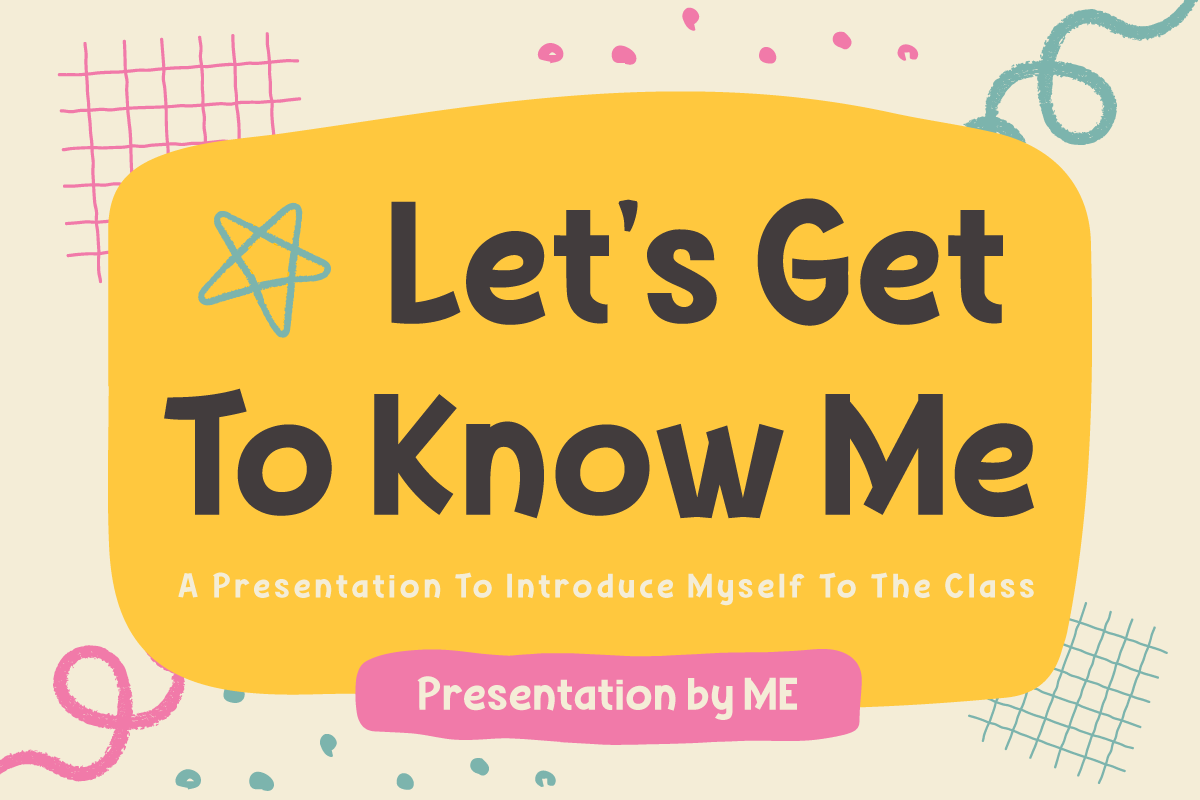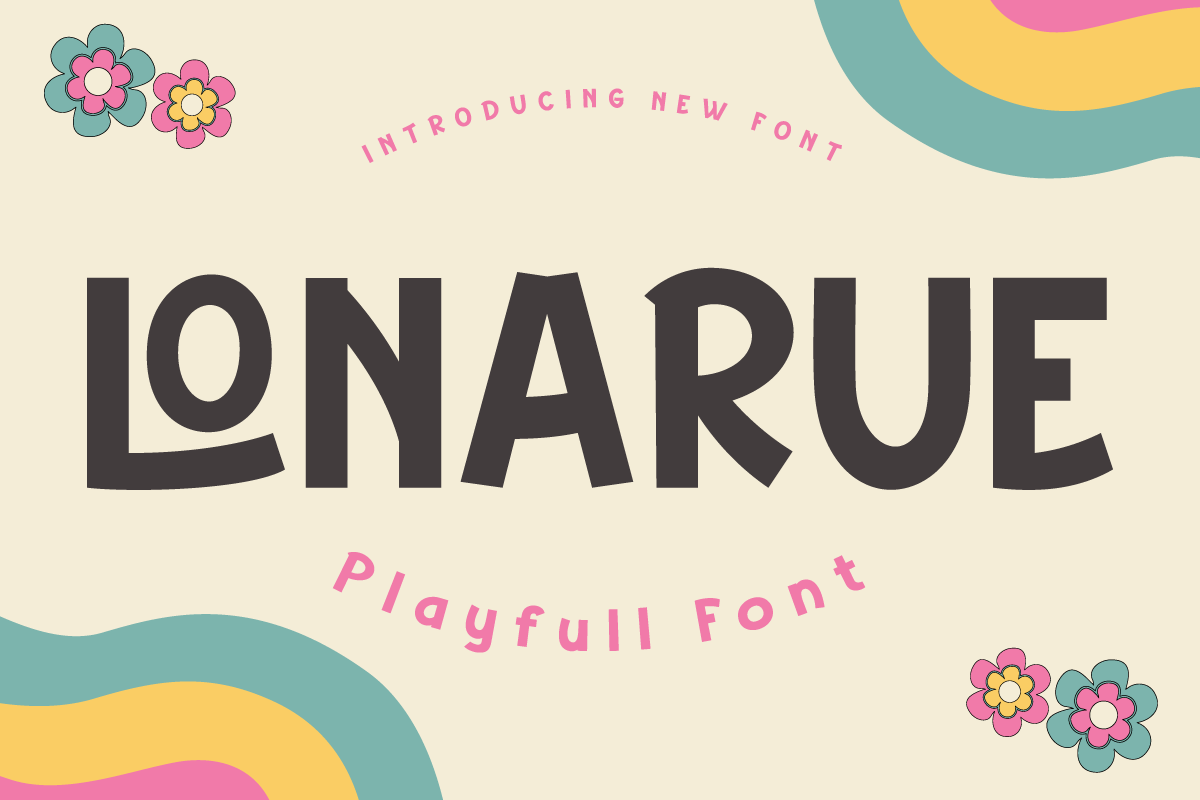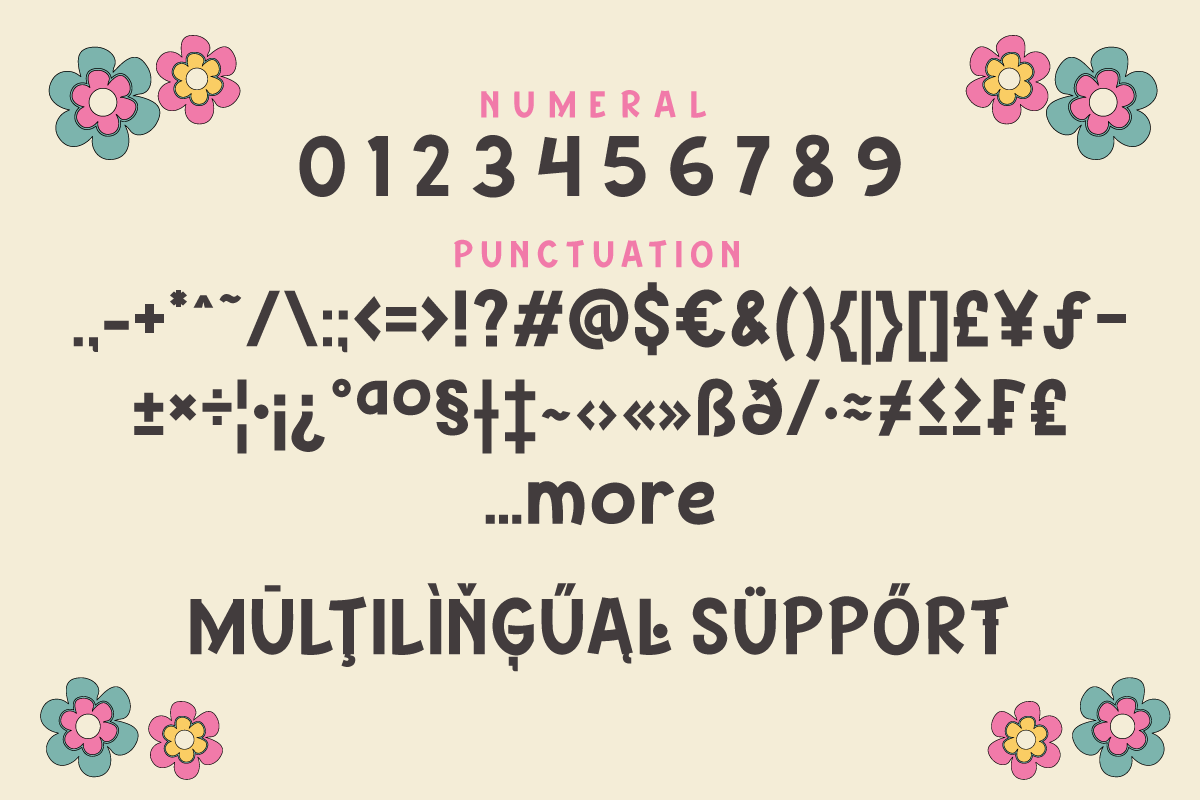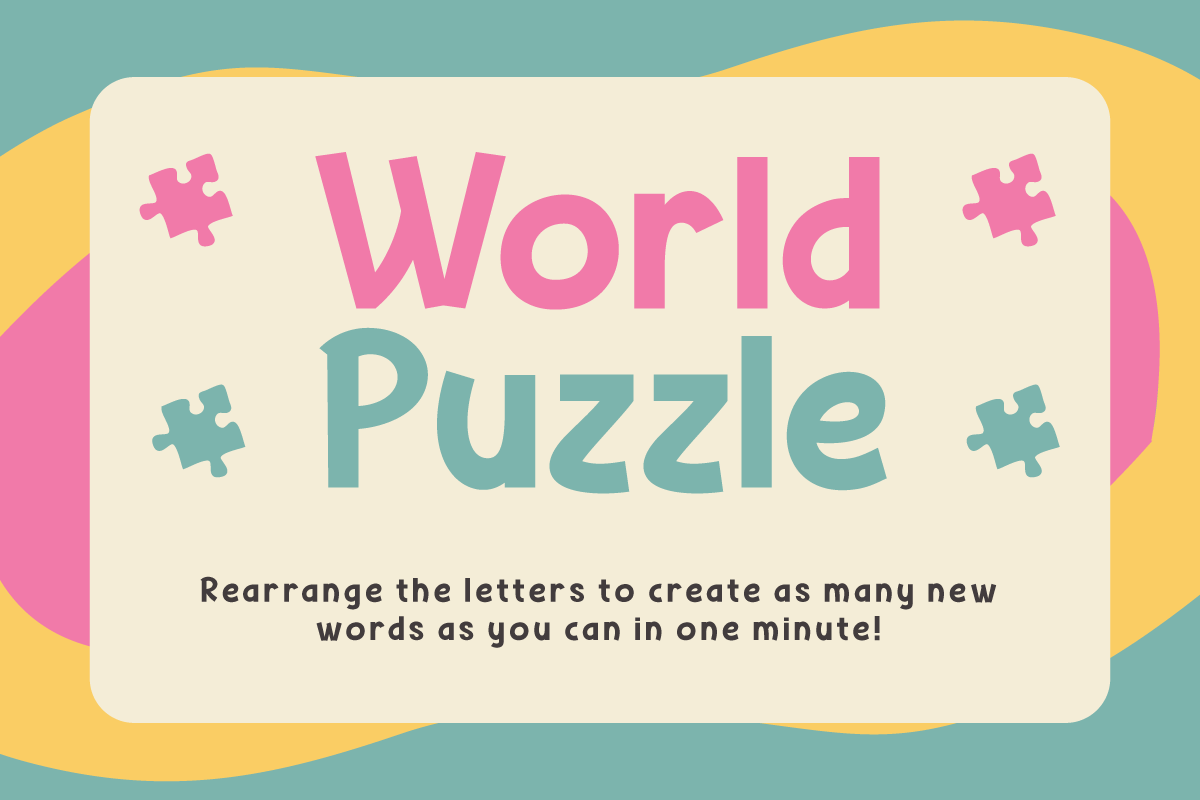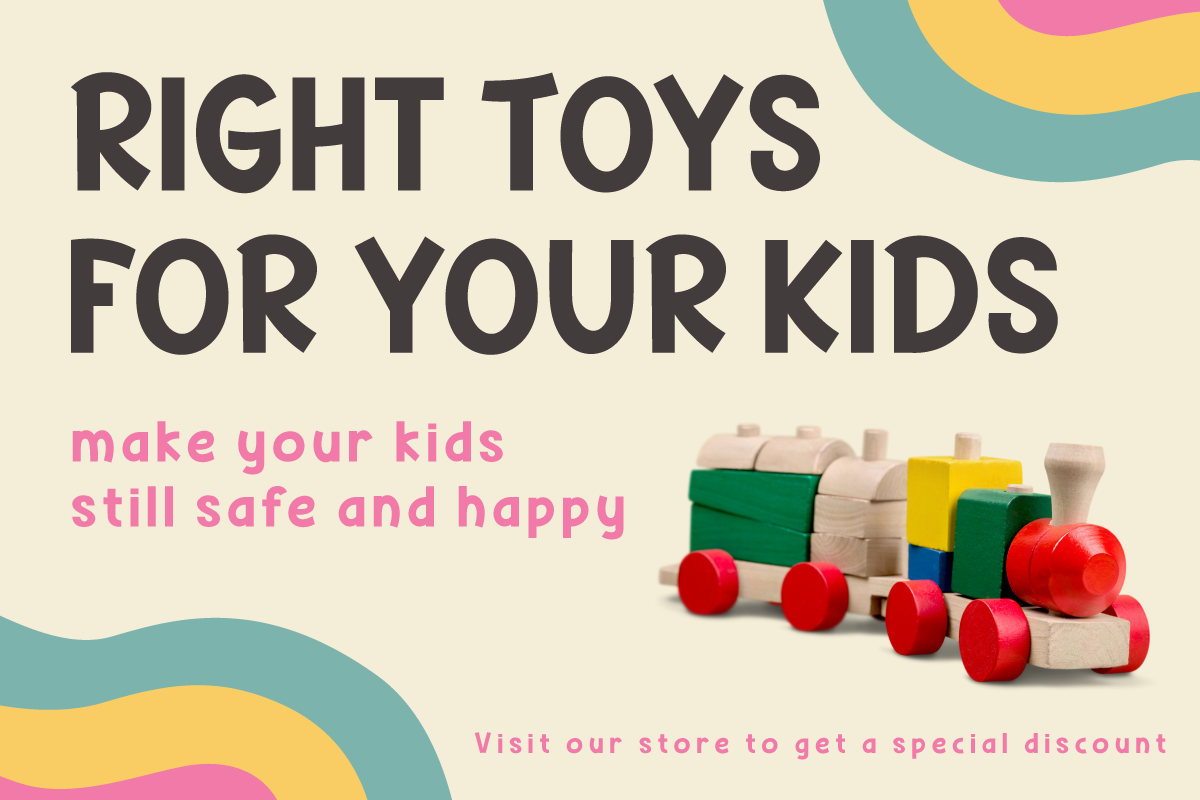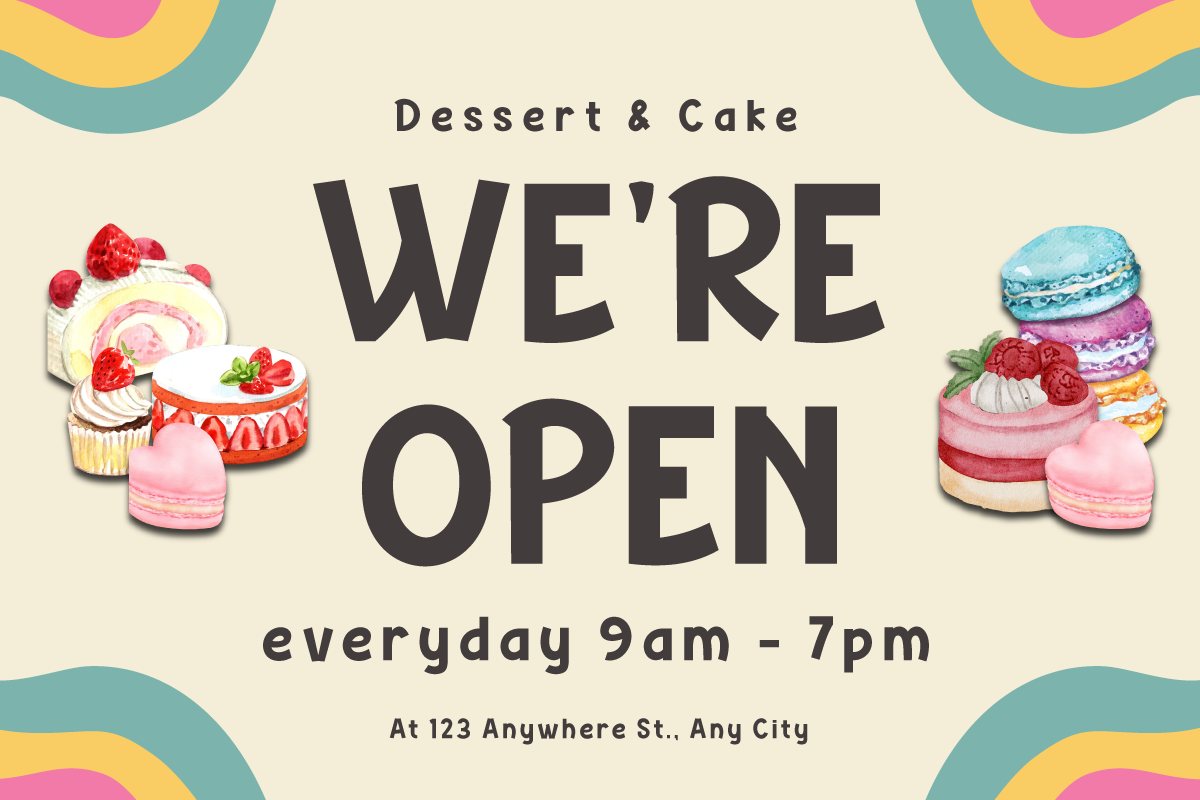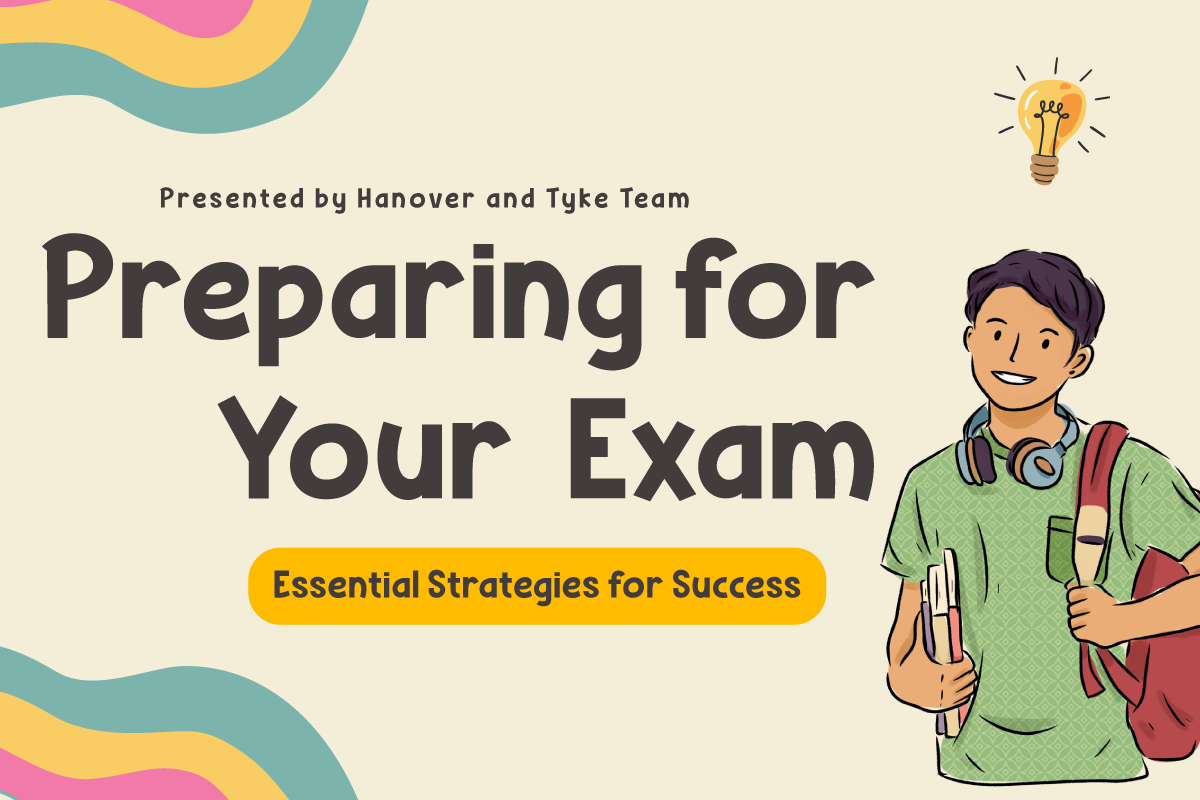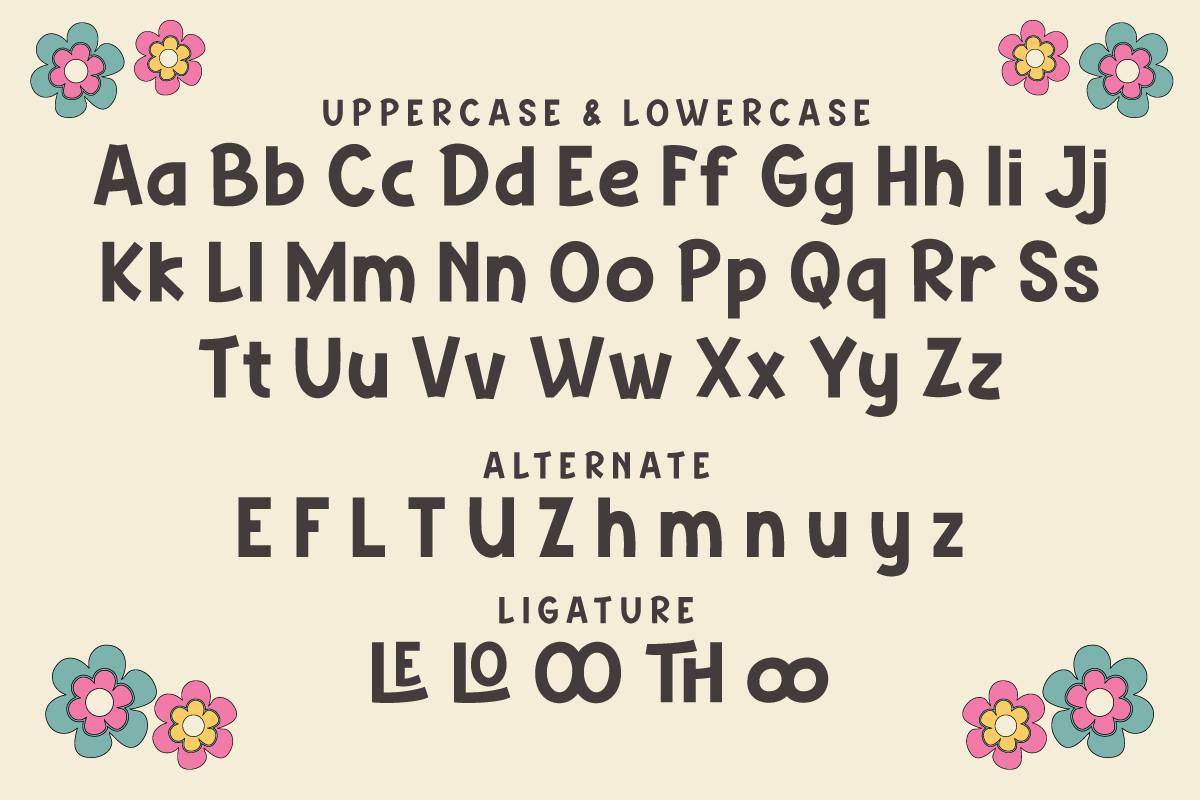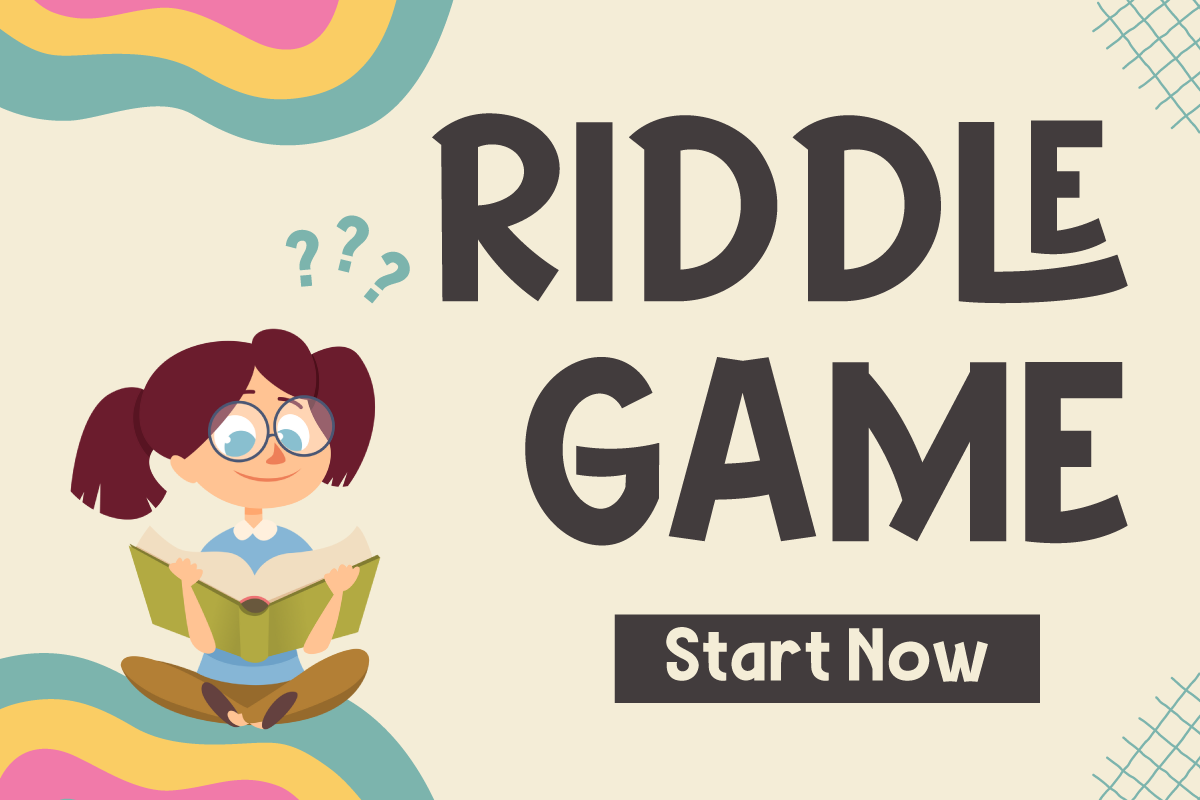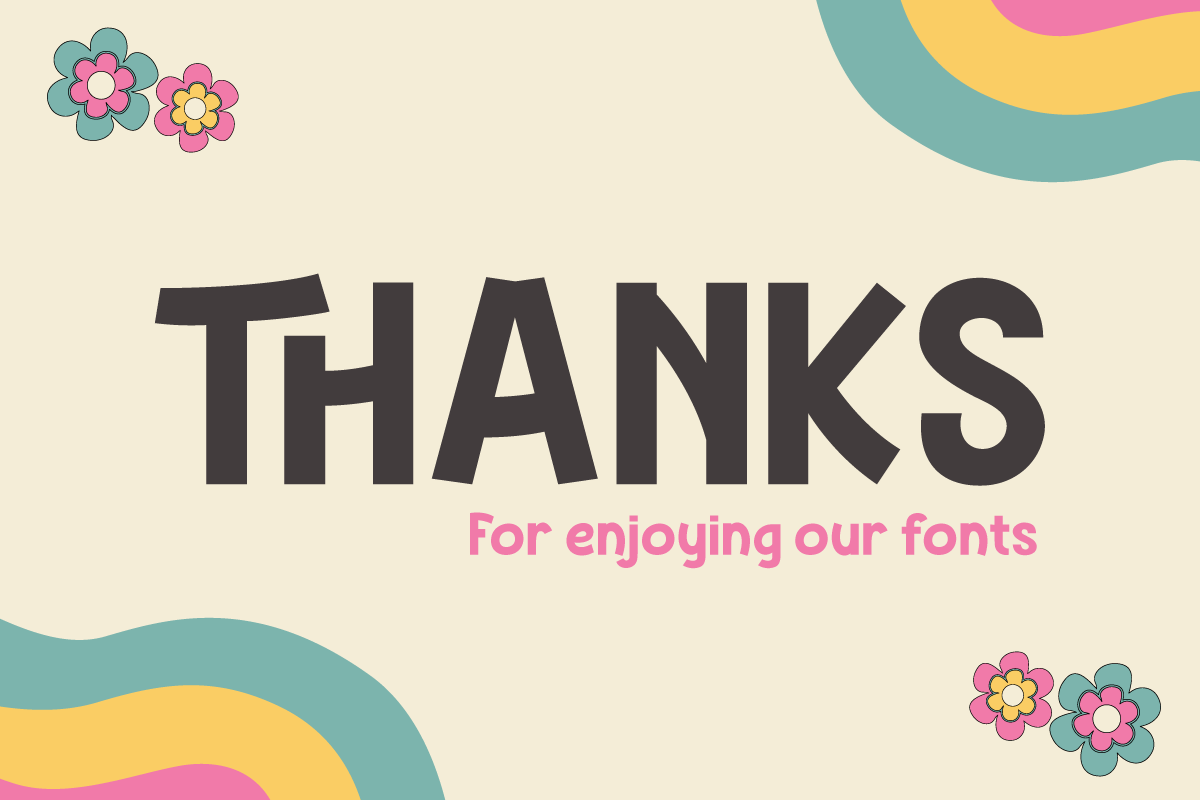
Lonarue | Playful Font Display
Introducing "Lonarue Font" - Where Playfulness Takes Center Stage!
Lonarue Font is your passport to a world of creativity and fun in typography. This whimsical typeface is carefully crafted to bring joy and a touch of playfulness to your designs.
With its lively and distinctive characters, Lonarue Font is the ideal choice for projects that demand a dash of imagination. Whether you're designing children's books, cheerful greeting cards, or vibrant logos, this font adds a delightful charm that captivates your audience.
Embrace the playful spirit of Lonarue Font and let your creativity shine. Elevate your designs, capture attention, and create lasting impressions effortlessly with this versatile typeface.
Experience the magic of Lonarue Font and infuse your projects with the joy of playful typography today!
- All glyphs Iso Latin 1
- Alternate, Ligature
- Fonts include Multilingual support